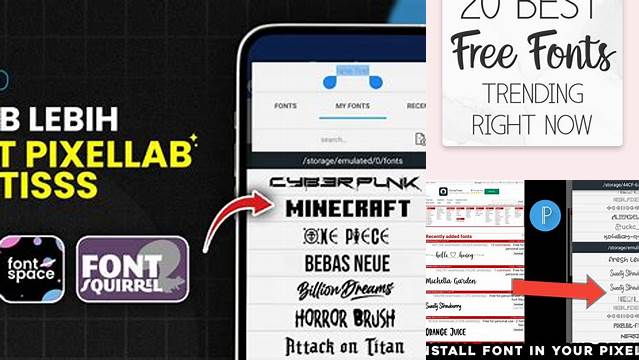
1000 Fonts For PixelLab: Supercharge Your Designs!
Hey guys! Are you ready to take your PixelLab projects to the next level? One of the best ways to make your designs pop is by using awesome fonts. And guess what? We've got a treasure trove of 1000 fonts just waiting for you! In this article, we're diving deep into the world of fonts for PixelLab, exploring how they can transform your text, where to find them, and how to install them like a pro. So, buckle up and let's get started!
Why Fonts Matter in PixelLab Designs 🤔
Let's be real, guys – fonts are the unsung heroes of design. They're not just about making words readable; they're about conveying emotion, personality, and style. Think of it this way: the same message can feel totally different depending on the font you choose. A playful, bubbly font will give off a fun, casual vibe, while a sleek, modern font might be perfect for a professional project. By carefully choosing your fonts, you can communicate your message with precision and flair.
When you're working on PixelLab, you're crafting visual stories. And just like a good story needs compelling characters and a well-developed plot, your designs need the right fonts to bring them to life. A bold font can grab attention, an elegant script font can add a touch of sophistication, and a quirky font can inject some personality. The possibilities are endless! By having a diverse collection of fonts at your fingertips, you can ensure that your designs always hit the mark.
Fonts can dramatically impact your audience's perception of your work. Imagine creating a poster for a rock concert using a delicate, cursive font – it just wouldn't work, right? The font needs to match the mood and message. This is where having access to 1000 fonts becomes a game-changer. You can experiment with different styles, find the perfect fit for each project, and truly express your creative vision. Whether you're designing a logo, a social media graphic, or a catchy meme, the right font will help you make a lasting impression.
Diving into the World of 1000 Fonts 😲
Okay, so 1000 fonts might sound like a lot (and it is!), but it's also incredibly exciting! With such a vast selection, you'll never be stuck using the same old fonts again. You'll be able to explore different styles, discover hidden gems, and develop your own unique typographic voice. But where do you even begin? Let's break it down.
Think about the different categories of fonts: Serif, Sans-serif, Script, Display, and Decorative. Serif fonts have those little “feet” or strokes at the ends of the letters, giving them a classic, traditional feel. Think Times New Roman or Georgia. Sans-serif fonts, on the other hand, are clean and modern, without those extra strokes. Arial and Helvetica are popular examples. Script fonts mimic handwriting, adding elegance and personality. Think of calligraphy or cursive styles. Display fonts are designed to grab attention, with bold and unique shapes. They're perfect for headlines and titles. And finally, Decorative fonts are the wildcards – anything goes! They can be quirky, playful, or even futuristic.
With 1000 fonts, you'll have a massive playground to explore these different categories. You can mix and match fonts to create interesting contrasts, or stick to a single font family for a cohesive look. The key is to experiment and find what works best for your design. Don't be afraid to try something new and push your creative boundaries. You might just discover your new favorite font!
Having a wide range of fonts also means you can tailor your designs to specific audiences and purposes. For example, if you're creating a design for children, you might want to use a playful, cartoonish font. If you're designing a professional brochure, you might opt for a clean and elegant serif or sans-serif font. The more options you have, the better equipped you'll be to create designs that truly resonate with your target audience.
Finding Your Font Paradise: Where to Get 1000 Fonts 🗺️
Alright, guys, let's talk about where to find this treasure trove of fonts! The internet is your oyster, but it's important to know where to look for safe and high-quality fonts. There are tons of websites out there offering free and premium fonts, so let's explore some of the best options.
- Google Fonts: This is a fantastic resource, offering hundreds of free and open-source fonts. The best part? They're super easy to download and use, and they're all web-friendly, which means they'll look great on any device. Plus, Google Fonts has a handy filtering system that lets you search by category, style, and even language.
- DaFont: This website is a goldmine for unique and free fonts. You'll find everything from quirky display fonts to elegant scripts. Just be sure to check the license before using a font for commercial projects, as some are only free for personal use.
- FontSpace: Similar to DaFont, FontSpace offers a huge selection of free fonts. It's a great place to find hidden gems and discover new designers.
- Creative Market: If you're looking for premium fonts, Creative Market is the place to be. You'll find high-quality fonts designed by professionals, often with additional features and glyphs. While they're not free, the investment can be worth it if you need a truly unique and polished font.